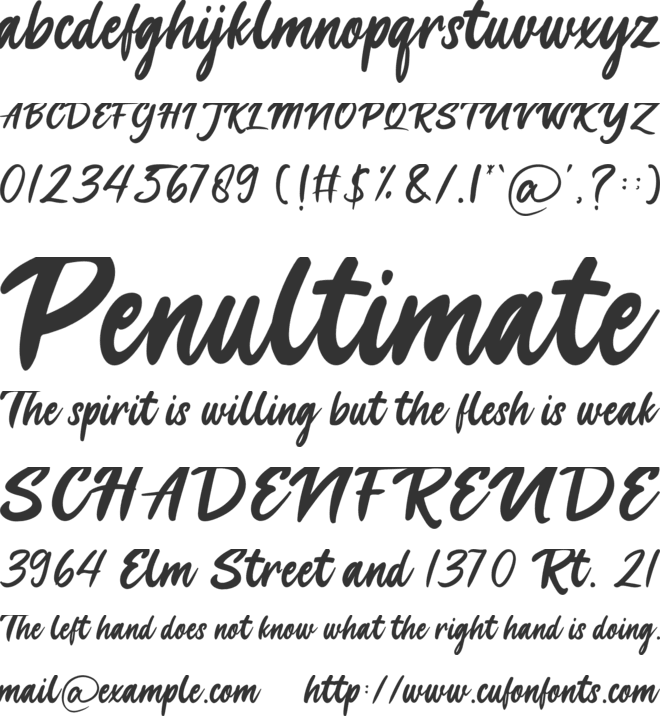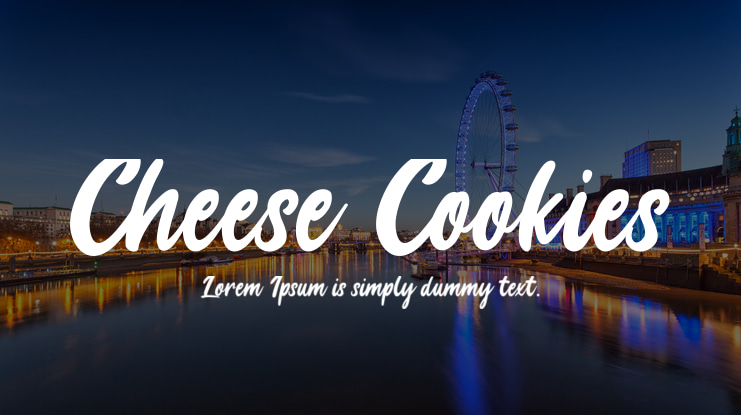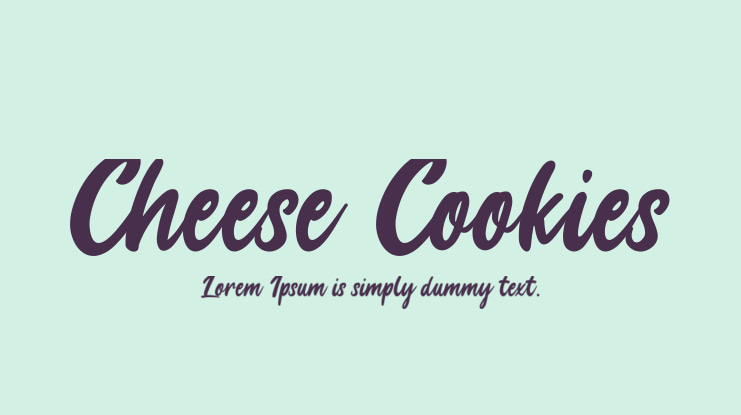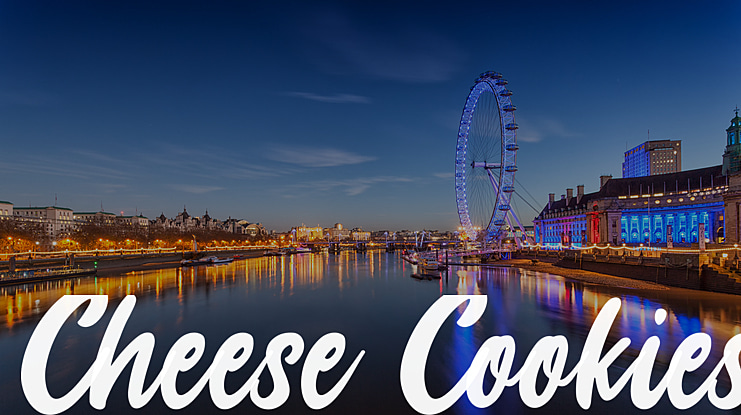
Cheese Cookies Font
Muhamad Fikry Nuralif
Cheese Cookies - Font is a new modern & stylish script font.
I'ts Perfect for logo,branding, invitation, tittle, wedding designs, social
media posts, advertisements, product packaging, product designs, label,
photography, watermark, special event,magazine,web design,etc.What's
stylistic alternate
ligature
numeral & symbols
Multilingual support